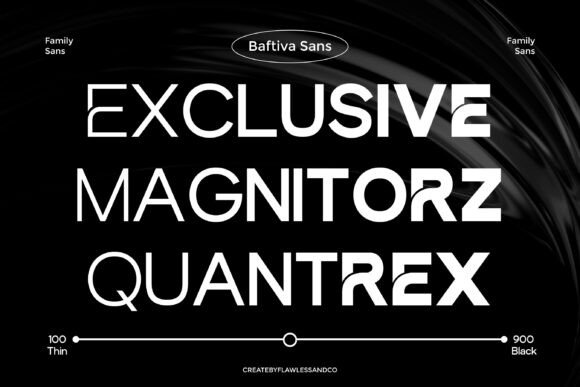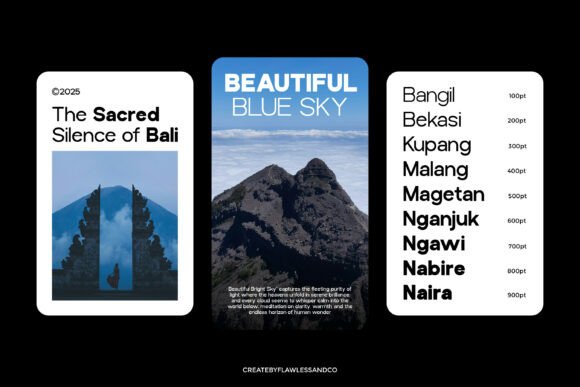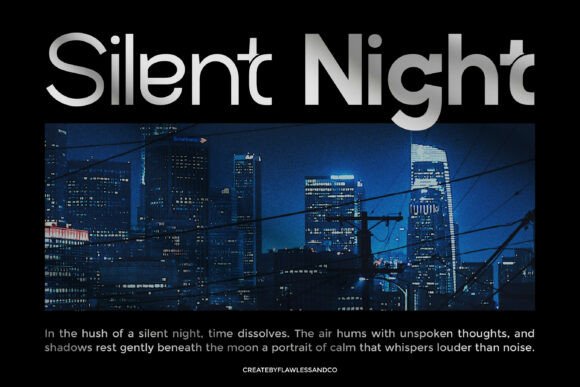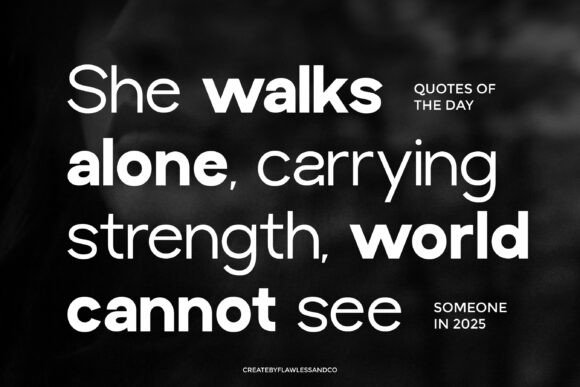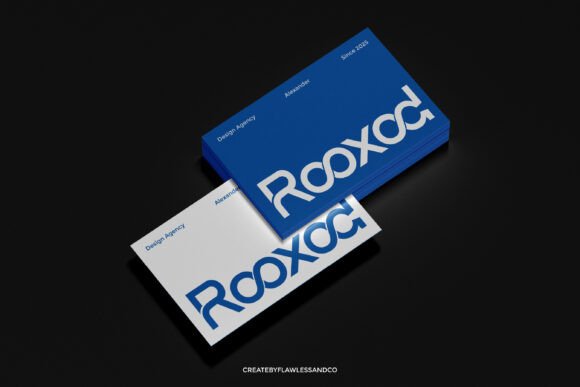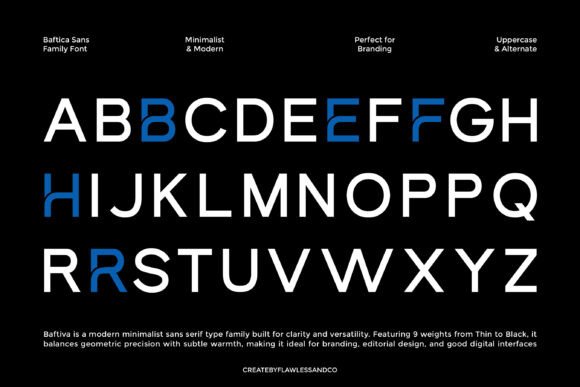
The Perfect Canvas for Your Creative Vision
As designers, we’ve all been there – staring at a blank screen, trying to bring a concept to life. The perfect font can be the difference between a great design and an exceptional one. It’s the subtle balance of style and functionality that elevates your work from good to great. For those moments, we’re excited to introduce the Baftiva Font – a modern family sans serif typeface designed to deliver clarity and versatility.
With 9 carefully crafted weights, from thin to black, the Baftiva Font offers the precision and balance you need to create strong visual identities. Whether you’re working on a brand, publication, or digital project, this font is your perfect companion. Its clean structure and range of weights make it a valuable asset for designers who value simplicity and effectiveness.
Baftiva Font Key Features
- Font Family: Baftiva Font comes in a single family with multiple weights and styles, offering a total of 10 fonts.
- Character Set: The font includes a comprehensive character set, covering Latin, Cyrillic, and Greek alphabets, as well as various symbols and punctuation marks.
- Font Size: Baftiva Font is designed to be highly legible at various font sizes, with optimal readability at sizes ranging from 10 to 24 points.
- Unique Characteristics: Baftiva Font features a distinctive, modern design with a mix of geometric and organic elements, making it ideal for contemporary branding and design projects.
Review of Baftiva Font
I recently had the chance to work with the Baftiva font, and I must say it’s a solid addition to any designer’s toolkit. Here are my thoughts:
- ✨ Unique character set: Baftiva has a distinctive look that sets it apart from more common fonts.
- ✨ Versatility: This font is suitable for a wide range of projects, from headings to body text.
- ✨ High legibility: The font’s design makes it easy to read, even at smaller sizes.
- ⚠️ Limited support for non-Latin scripts: While Baftiva supports a wide range of Latin-based languages, it may not be suitable for projects that require support for non-Latin scripts.
- ⚠️ May not be suitable for small text: While Baftiva is highly legible, it may not be the best choice for small text, where a more condensed font may be preferred.
Overall, I think Baftiva is a great choice for designers who want a unique and versatile font for their projects. While it may have some limitations, its strengths make it a solid addition to any designer’s toolkit.
Baftiva Font: A Practical Application Guide
Tips for Getting the Most Out of Baftiva Font
To get the most out of Baftiva Font, use it in combination with bold or italic styles to create emphasis. You can also use it in conjunction with other fonts to create a unique and visually appealing design.
Baftiva Font is commonly used in modern designs, such as logos, business cards, and brochures. It’s also suitable for use in digital media, such as websites and social media posts.
Alternatives to Baftiva Font for Designers
Baftiva Font is a sans-serif typeface known for its clean lines, modern feel, and versatility. However, it may not be suitable for every design project. Here are some alternatives:
Montserrat is a geometric sans-serif font inspired by urban typography. It’s ideal for modern designs, headings, and titles. Montserrat is more geometric and structured compared to Baftiva Font, which has a more rounded feel. Use Montserrat when you need a font that’s both modern and sophisticated.
Open Sans is a clean and modern sans-serif font designed for digital interfaces. It’s highly legible and suitable for body text, headings, and titles. Open Sans is more neutral and less decorative compared to Baftiva Font, which has a unique character. Use Open Sans when you need a font that’s easy to read and works well in various contexts.